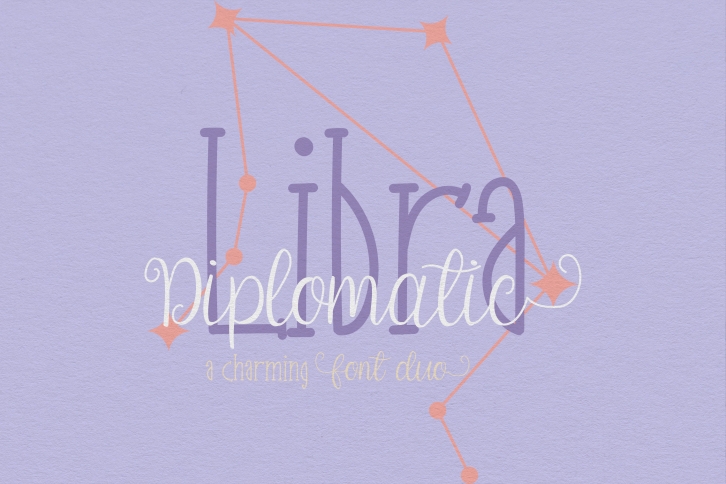
Diplomatic Libra Duo consists of two fonts designed to complement each other perfectly. Together or apart, these fonts are ideal for adding a chic and cheery touch to your crafts. Diplomatic Libra Duo is PUA encoded which means you can access all of the glyphs and swashes with ease!Â